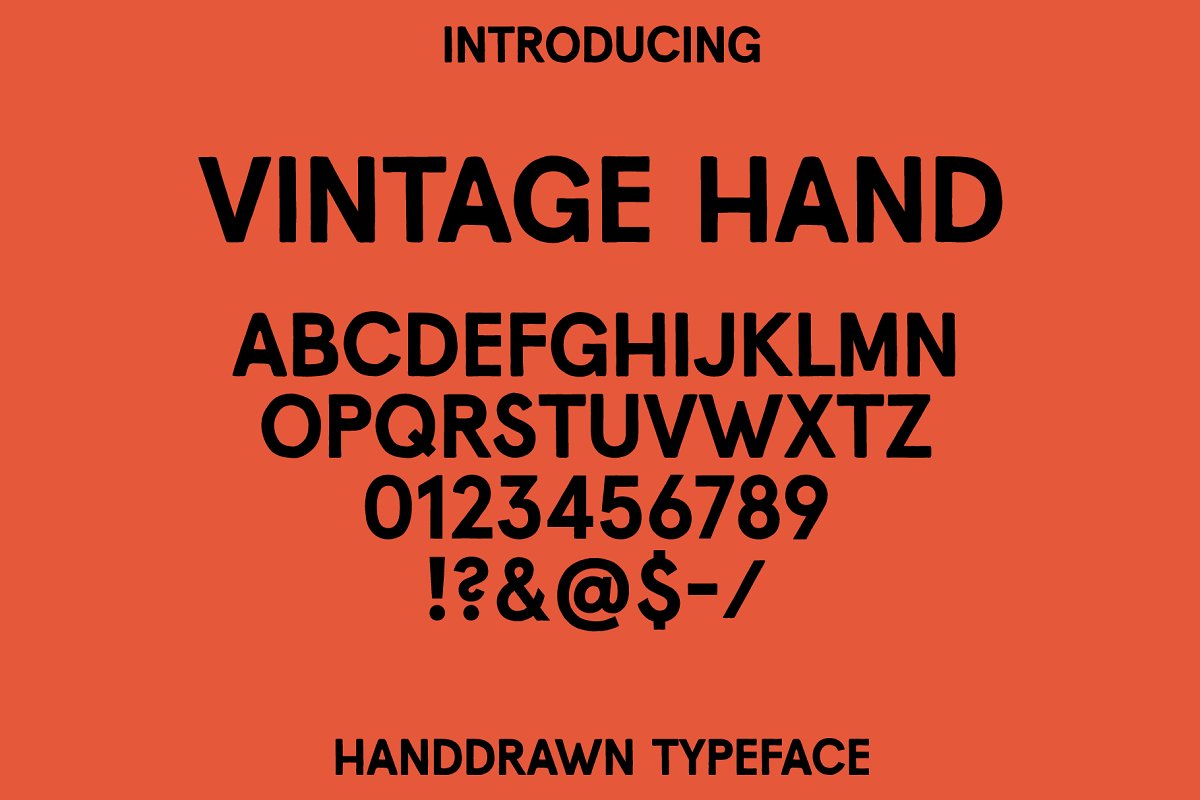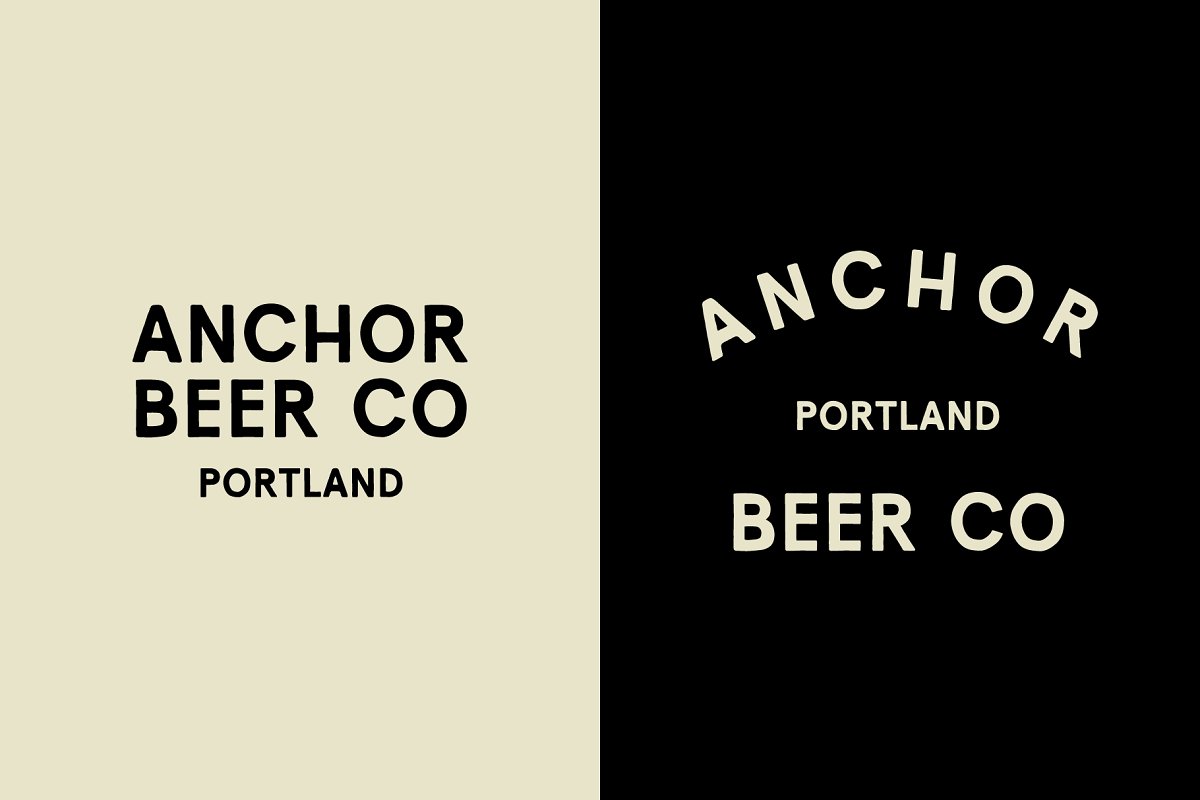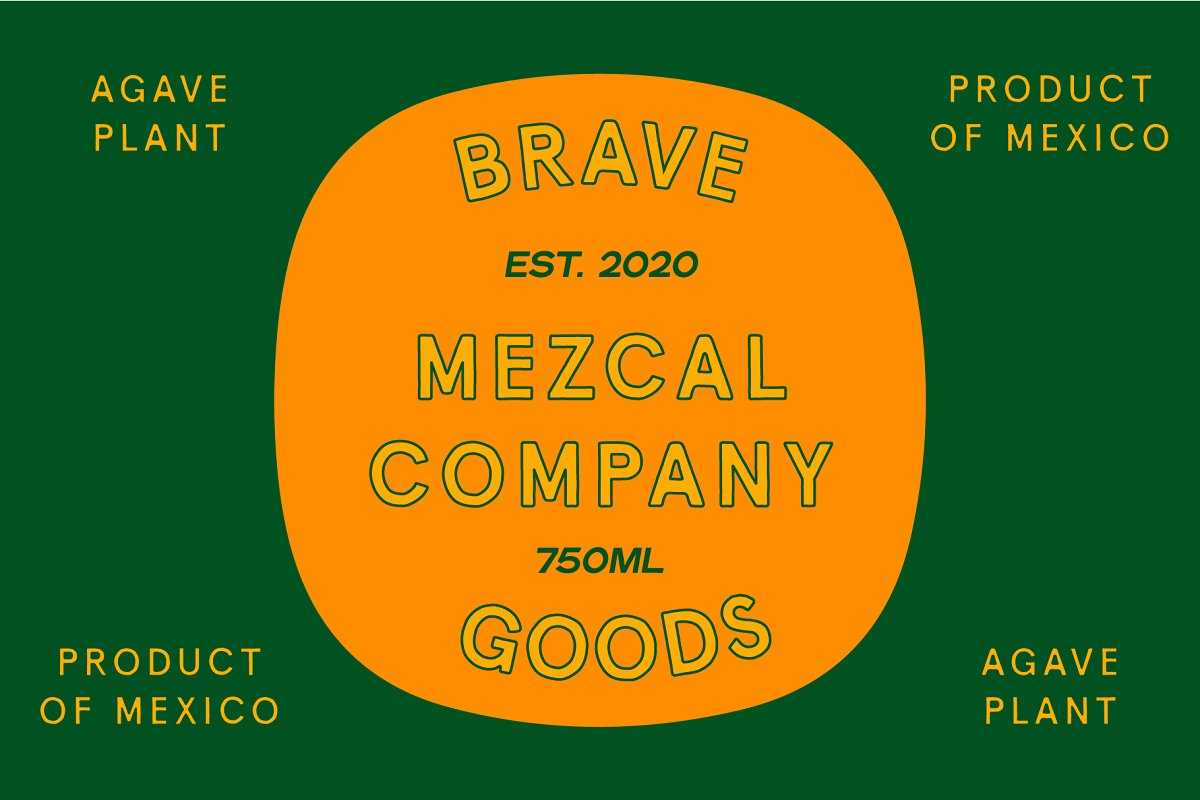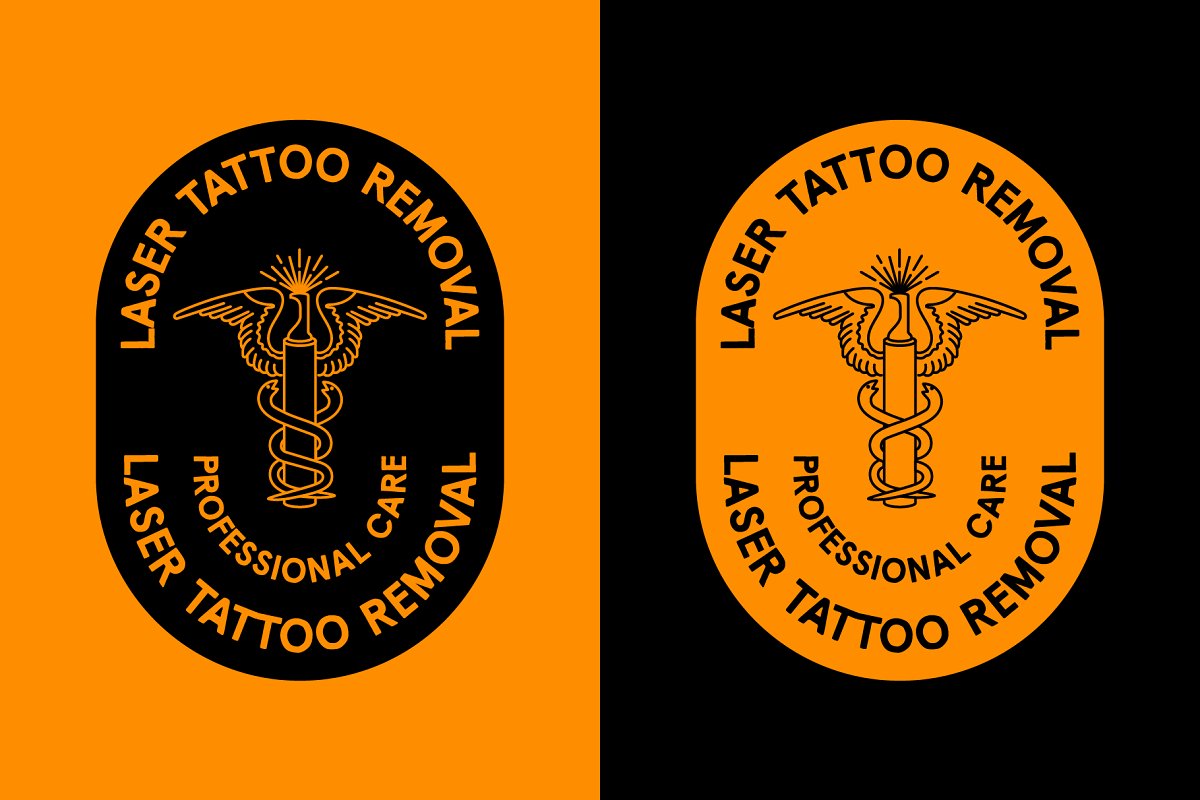
About the Vintage Hand Font
Introducing ‘Vintage Hand’. A hand drawn Sans Serif that draws its inspiration from vintage sign writing and bold signs of yesterdays era.